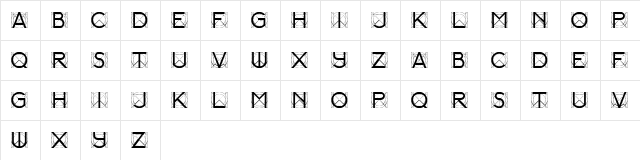
Grille Book Regular
Design Context for Grille Book Typeface
Grille Book is a composed and adaptable typeface that performs quietly and consistently across a wide range of design contexts.